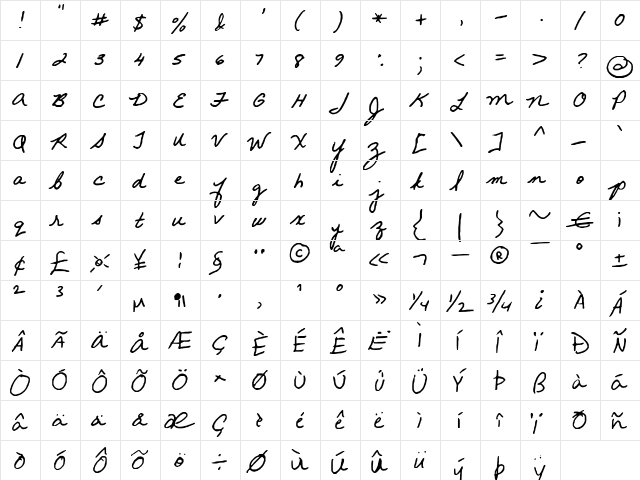
FG Stina Regular
Design Context for FG Stina Typeface
FG Stina is a composed and adaptable typeface that performs quietly and consistently across a wide range of design contexts.